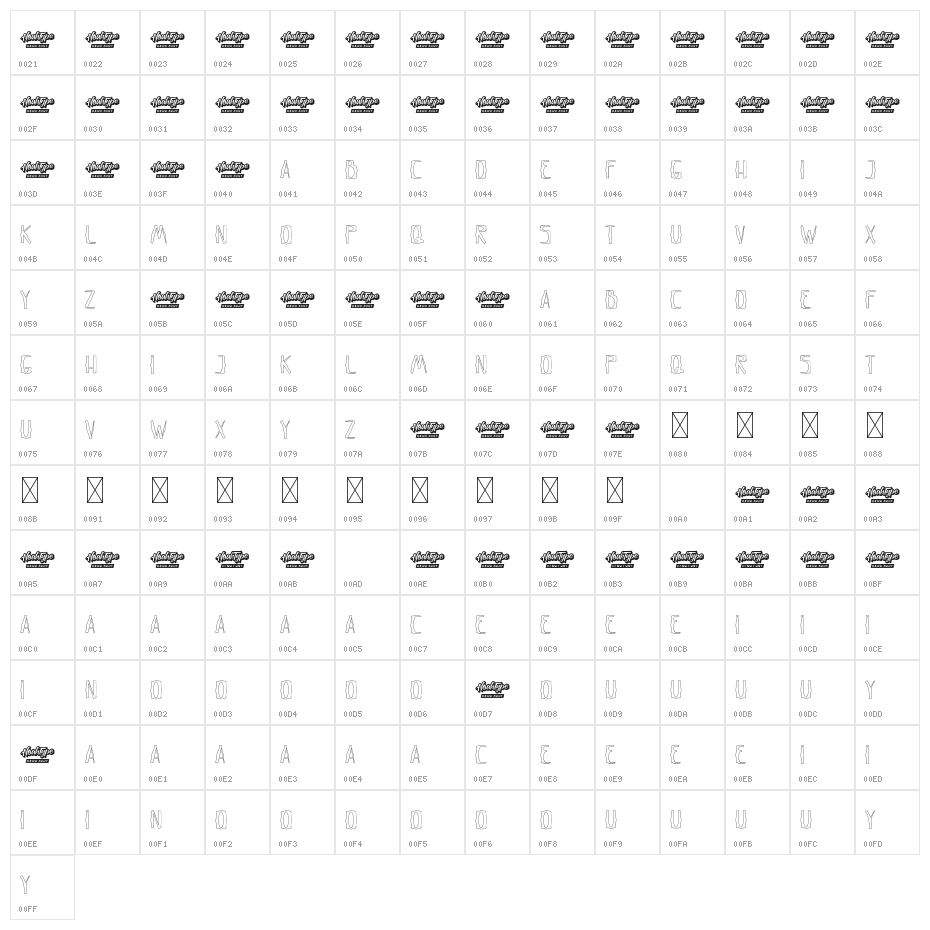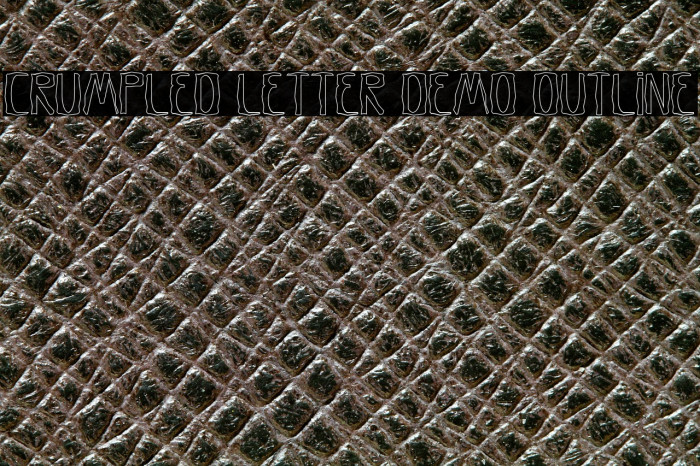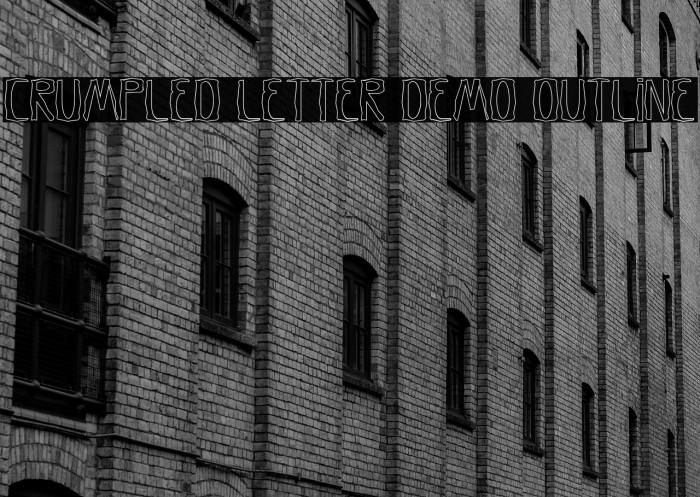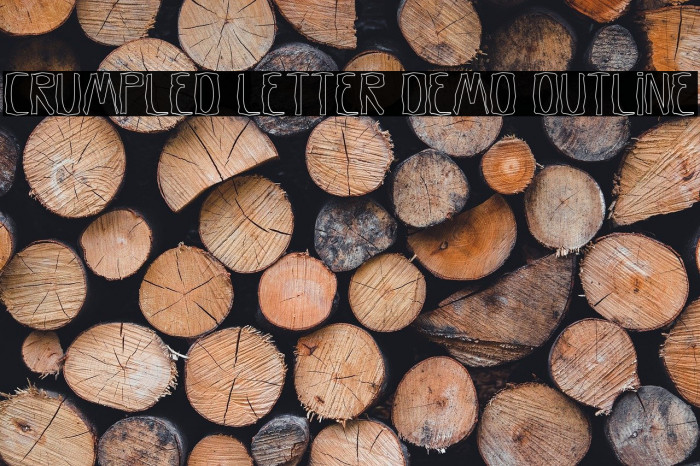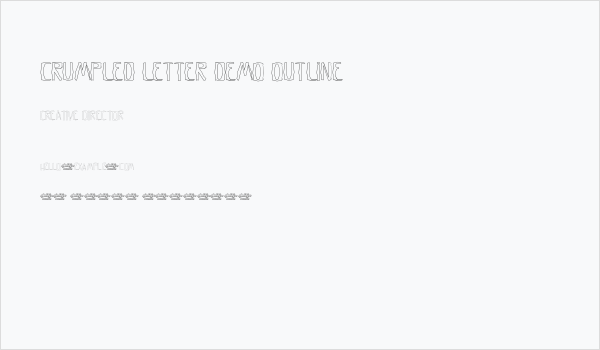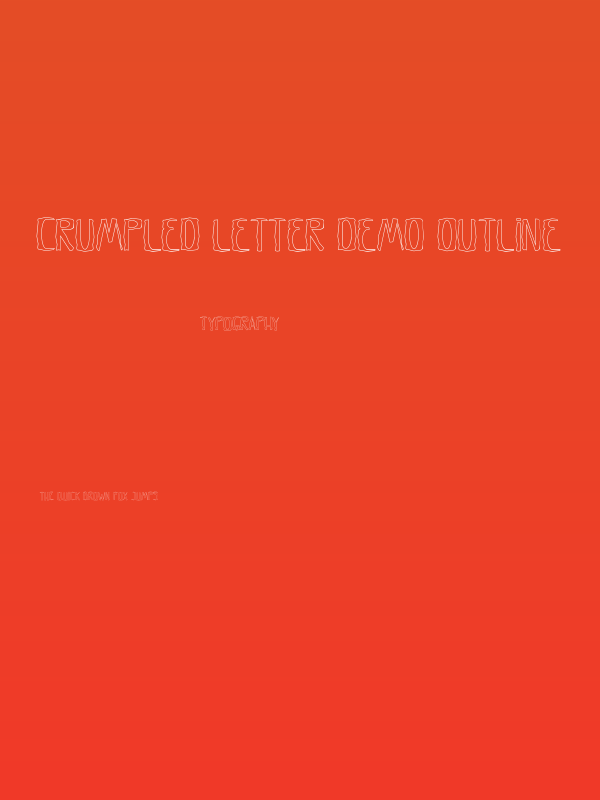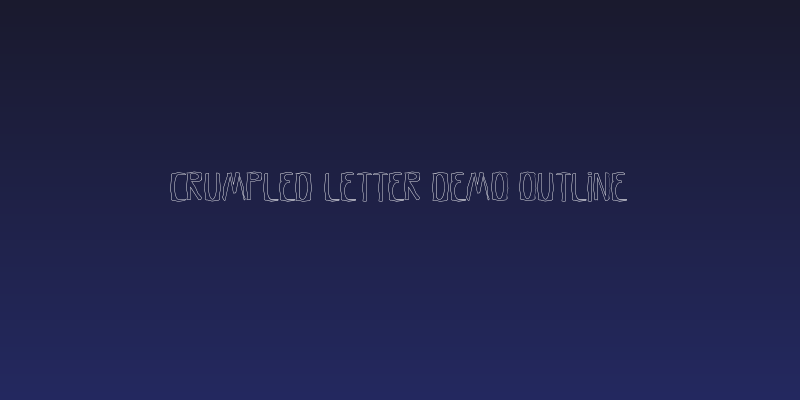
Crumpled Letter Demo Outline Font
Crumpled Letter Demo Outline Description
This font features a unique, crumpled outline style that gives each character a hand-drawn, organic appearance. The letters are uppercase and maintain a consistent height, while the irregular, jagged edges create a sense of movement and texture. The design is reminiscent of paper or fabric that has been crumpled and then smoothed out, providing a playful yet edgy aesthetic. This font lacks traditional serifs, leaning towards a more modern and artistic expression. The overall look is both casual and distinctive, making it suitable for creative projects that require a touch of individuality.
| Overall Style | Modern, Artistic |
| Proposed Projects | Ideal for posters, album covers, artistic branding, and creative digital media. |